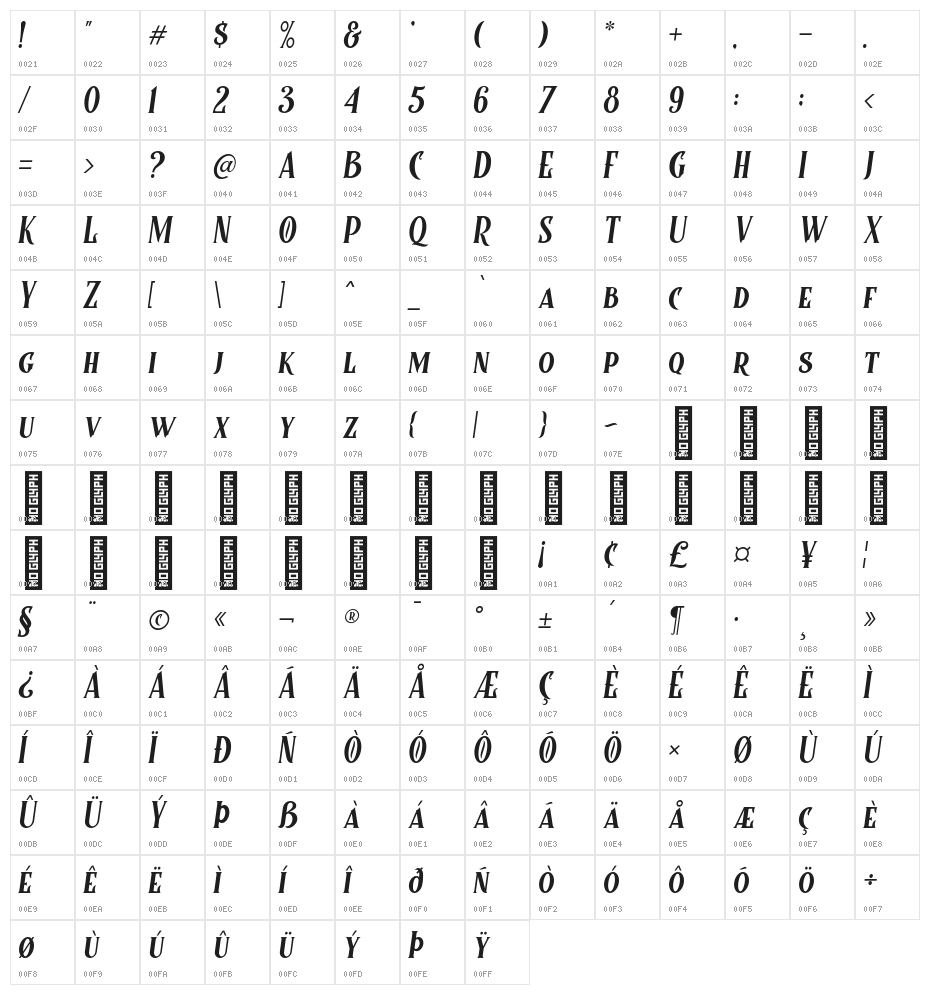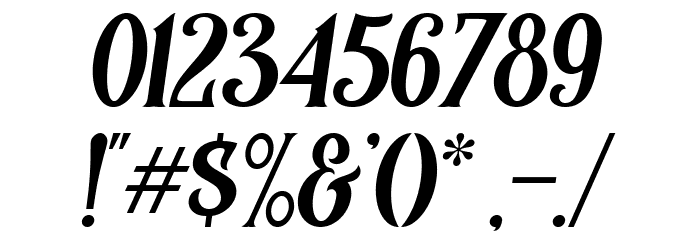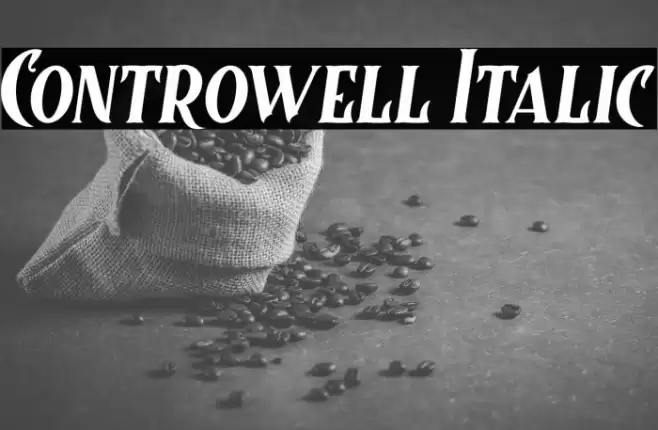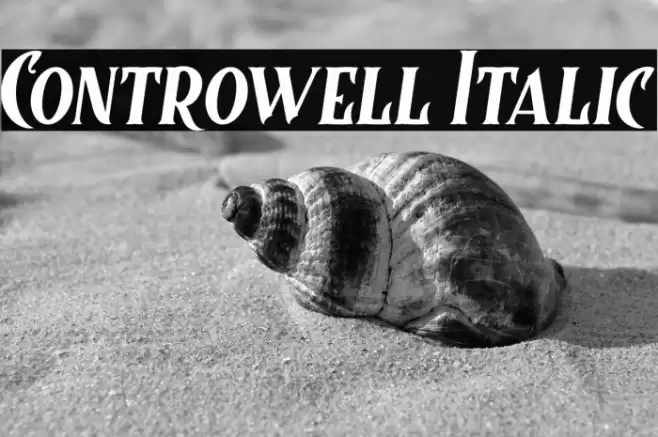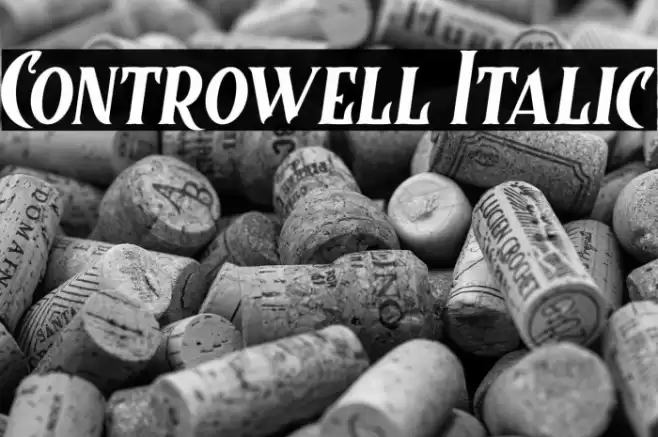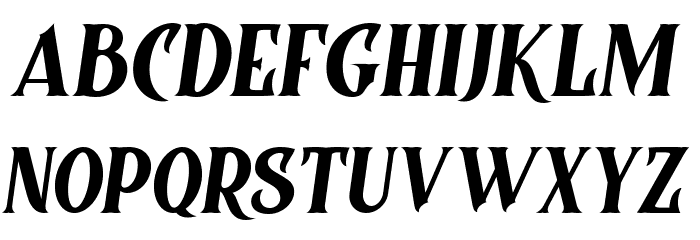
Controwell Italic Font
This font features a dynamic and elegant italic style with a distinct slant, giving it a sense of movement and sophistication. The characters are well-defined with a moderate contrast between thick and thin strokes, enhancing readability while maintaining an artistic flair. The uppercase letters are bold and commanding, while the lowercase letters offer a smooth and flowing appearance. The numerals are consistent with the overall style, ensuring uniformity across different uses. Special characters are crafted with the same attention to detail, making them suitable for a variety of design applications.
| Use Case | Headlines, Logos, Editorial design |
| Proposed Projects | Ideal for branding, editorial design, fashion magazines, and elegant invitations. |